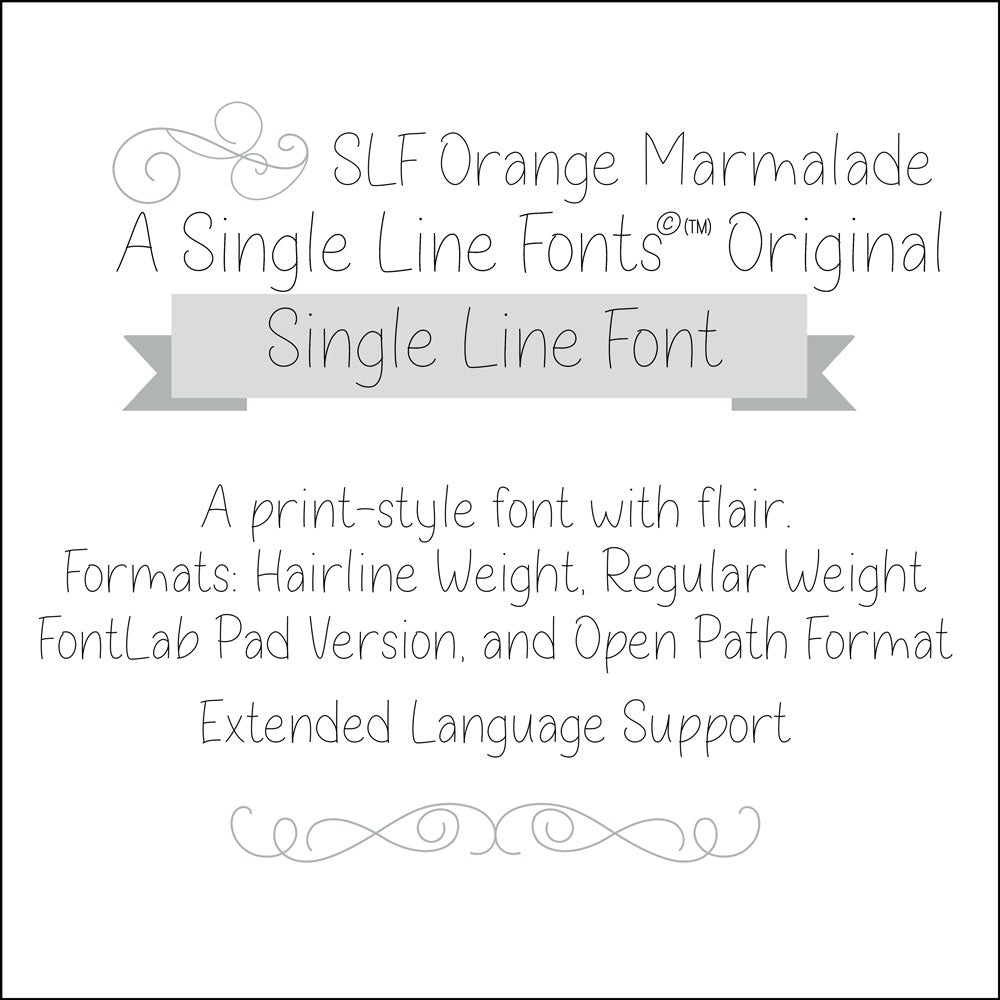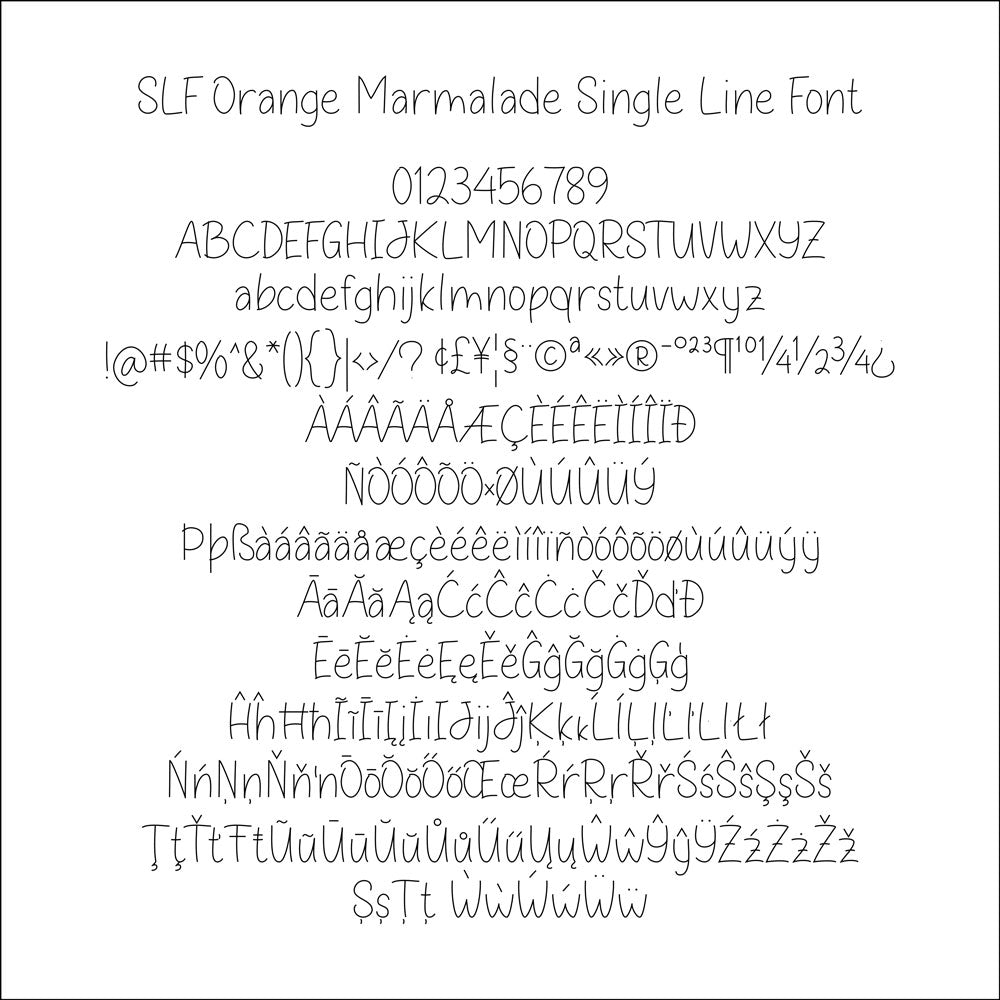
Single Line Font "SLF Orange Marmalade"
SLF Orange Marmalade: A playful yet sophisticated single-line font with a smooth, print style, perfect for engraving, drawing, and crafting projects.
As with all of my fonts, be sure to check the 2nd picture to see all of the included characters, including extended Latin characters for alternate languages.